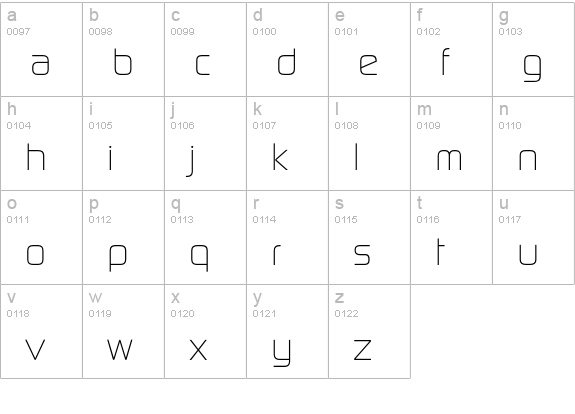
Digital-Lgt is a modern and sleek font that embodies a perfect balance between professionalism and creativity. With its clean lines and sharp edges, this font exudes a sense of sophistication and innovation. The geometric shapes and futuristic design elements make Digital-Lgt perfect for a wide range of projects, from digital branding to website design. What sets Digital-Lgt apart is not only its visual appeal, but also its accessibility. This versatile font is available for free download at FontsMarket.com, making it easily accessible to designers, creators, and enthusiasts alike. Whether you're working on a personal project or a client's campaign, Digital-Lgt is a reliable choice that will elevate your design work to the next level. Embrace the sleek and contemporary aesthetic of Digital-Lgt and unleash your creativity with this dynamic font. Download it for free today at FontsMarket.com and transform your projects with its modern and captivating style.